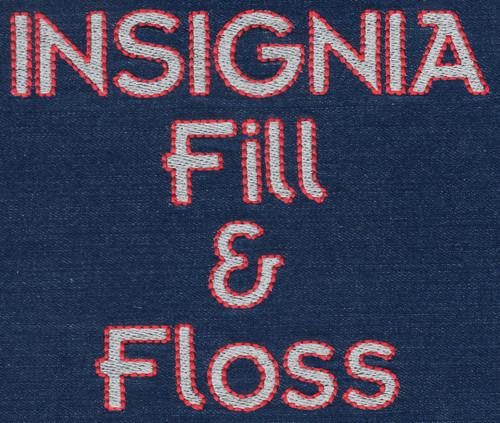
730 Insignia Fill & Floss Font
730 Insignia Fill & Floss Font comes in 1", 1.5", 2", 2.5", 3", 3.5" and 4" heights based on the capital "A". All sizes are finished on Fill Stitch with Floss Stitch outlines - see description of Floss Stitch Here. All sizes include uppercase letters, lowercase letters, numbers and ten punctuation marks as shown in the character chart above.